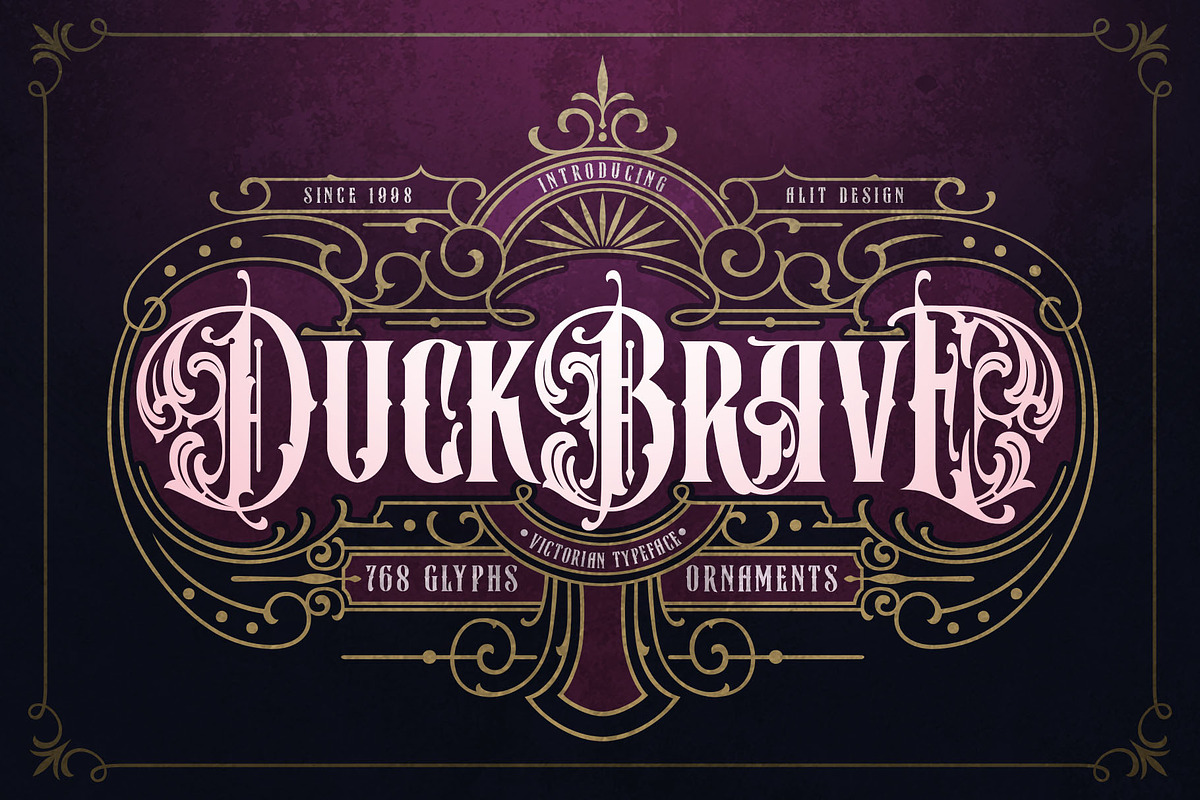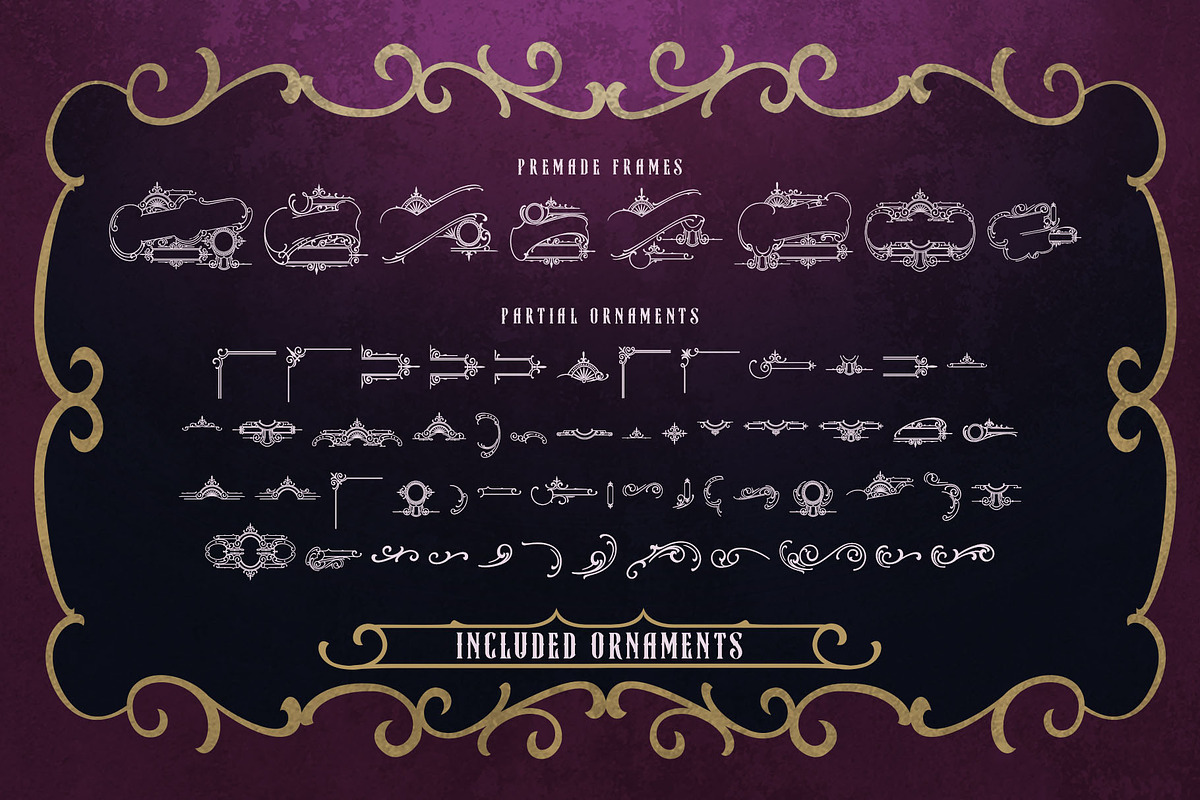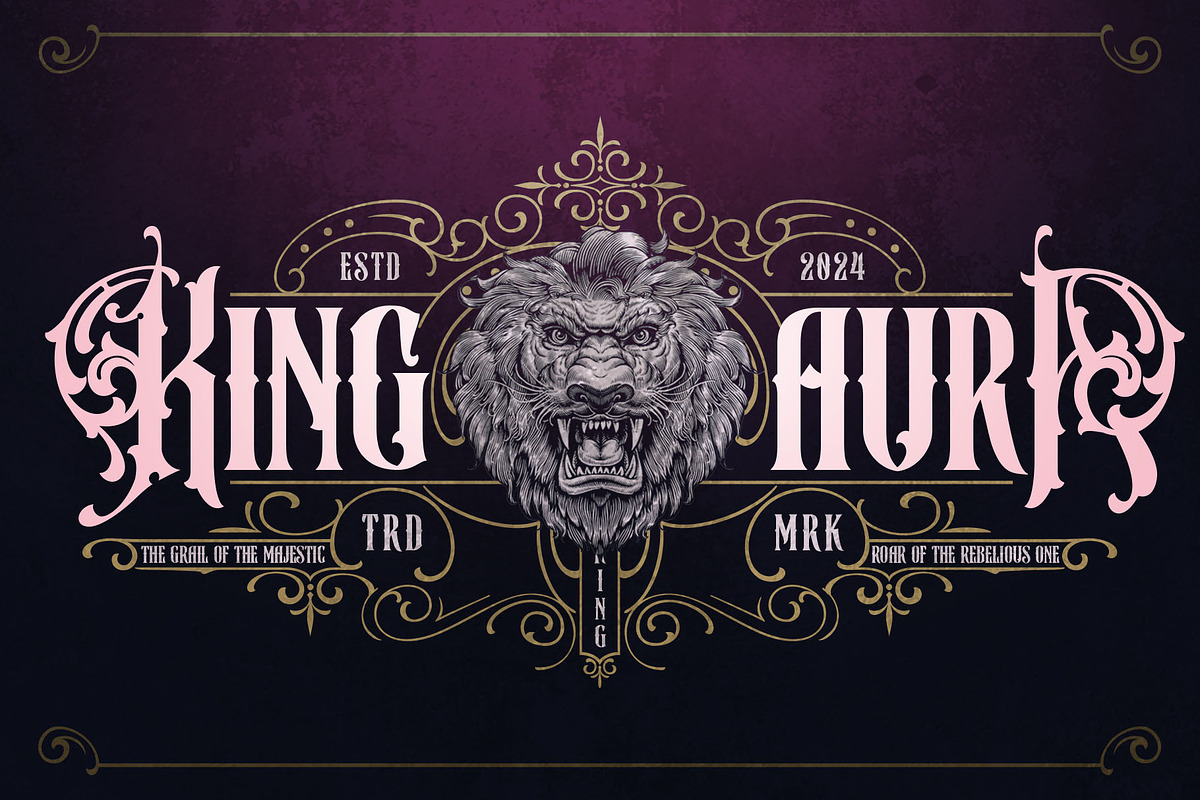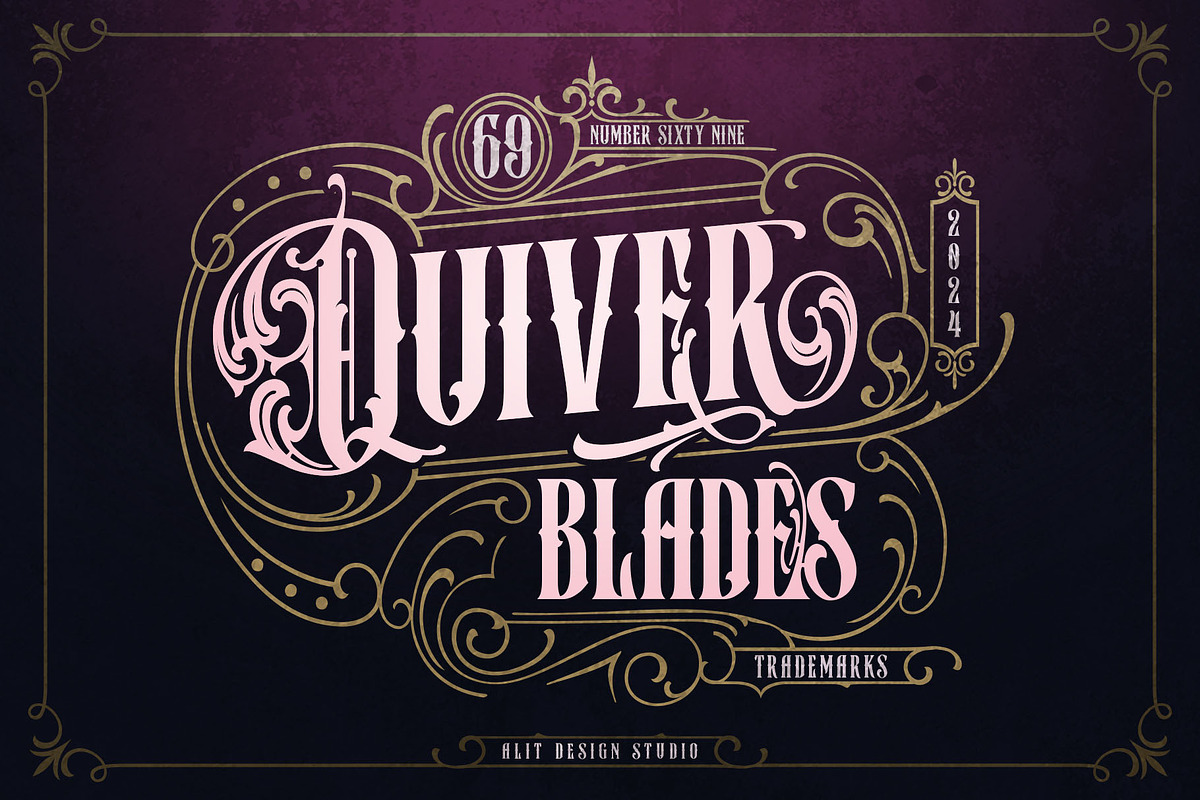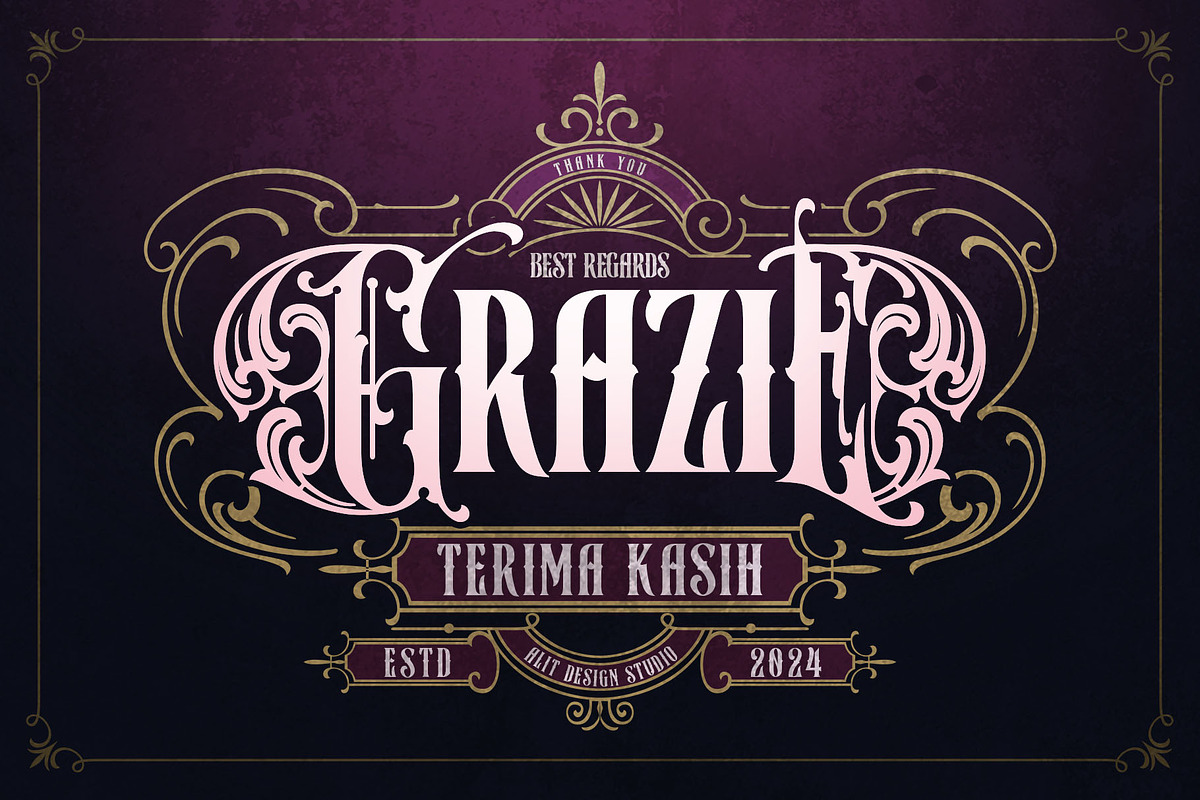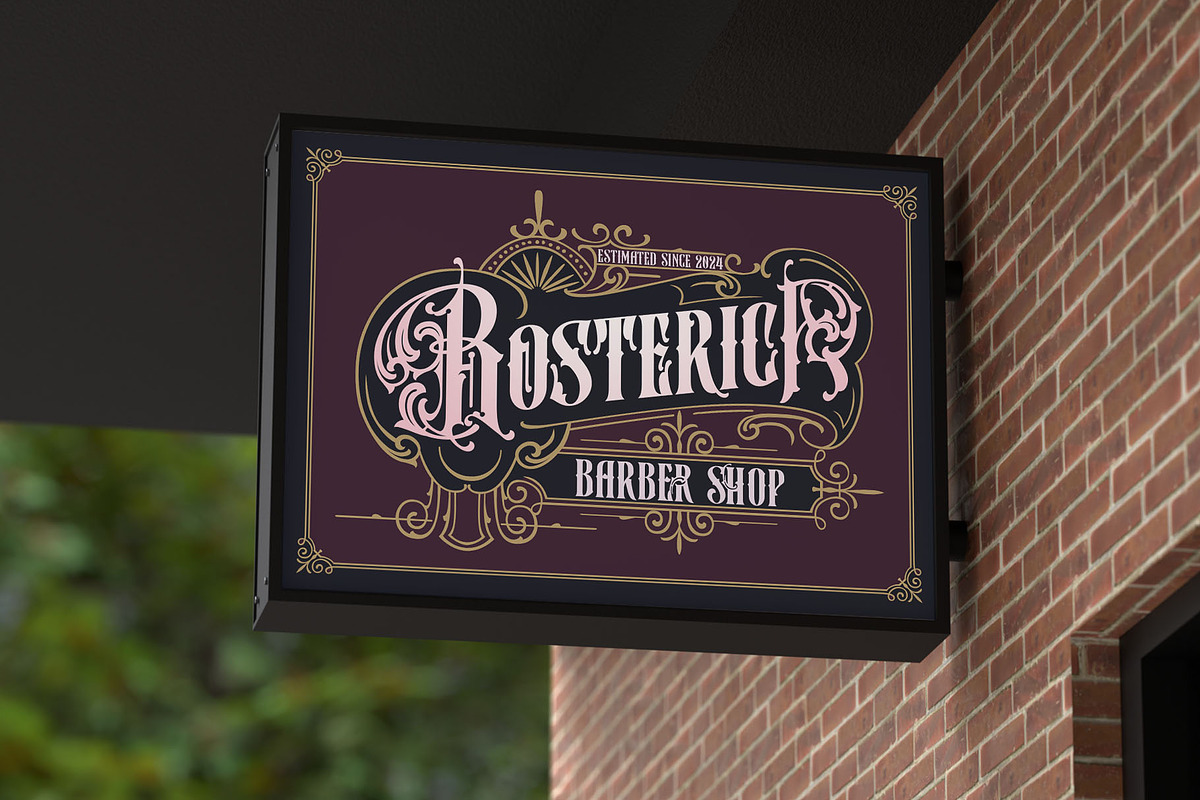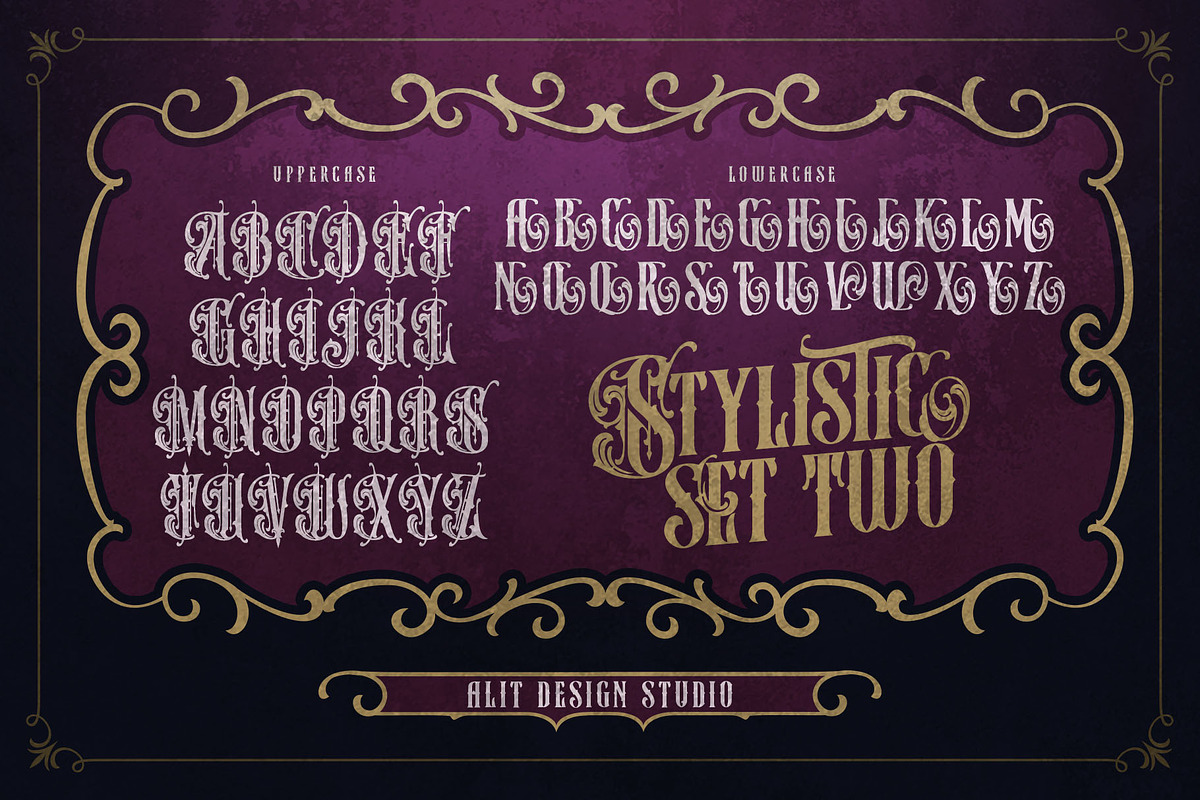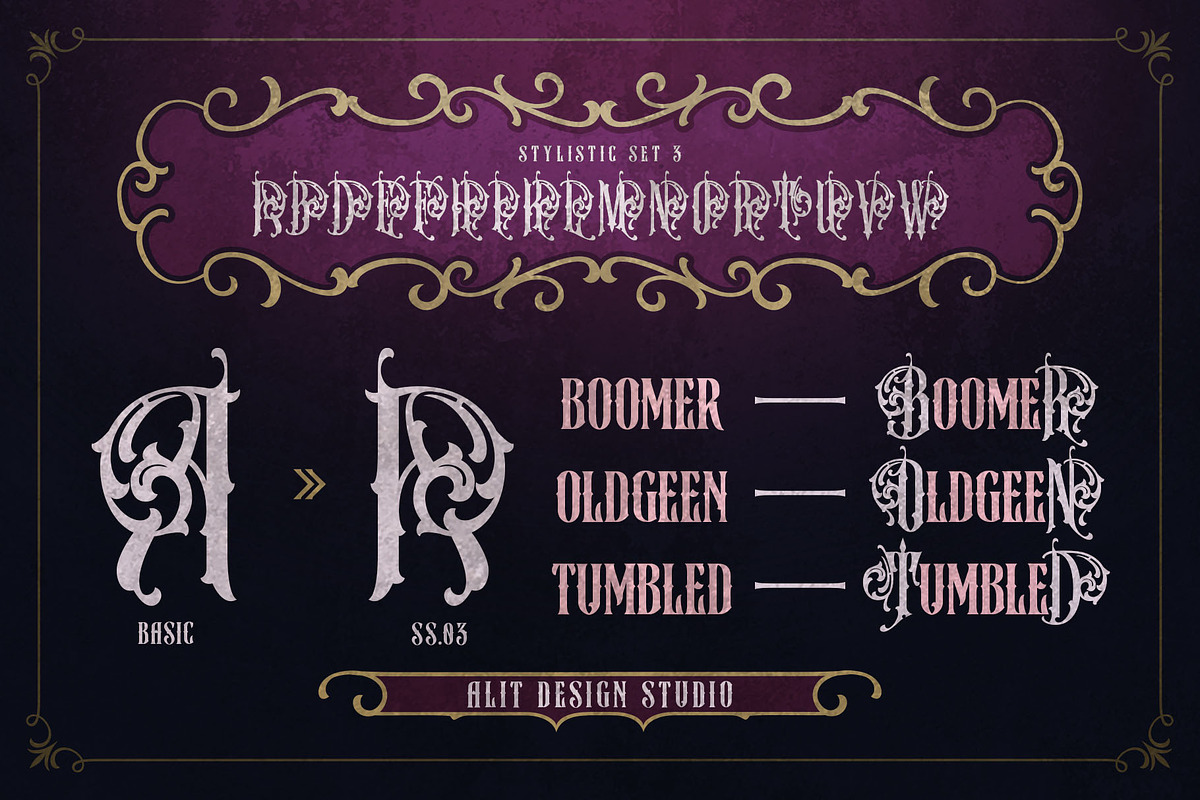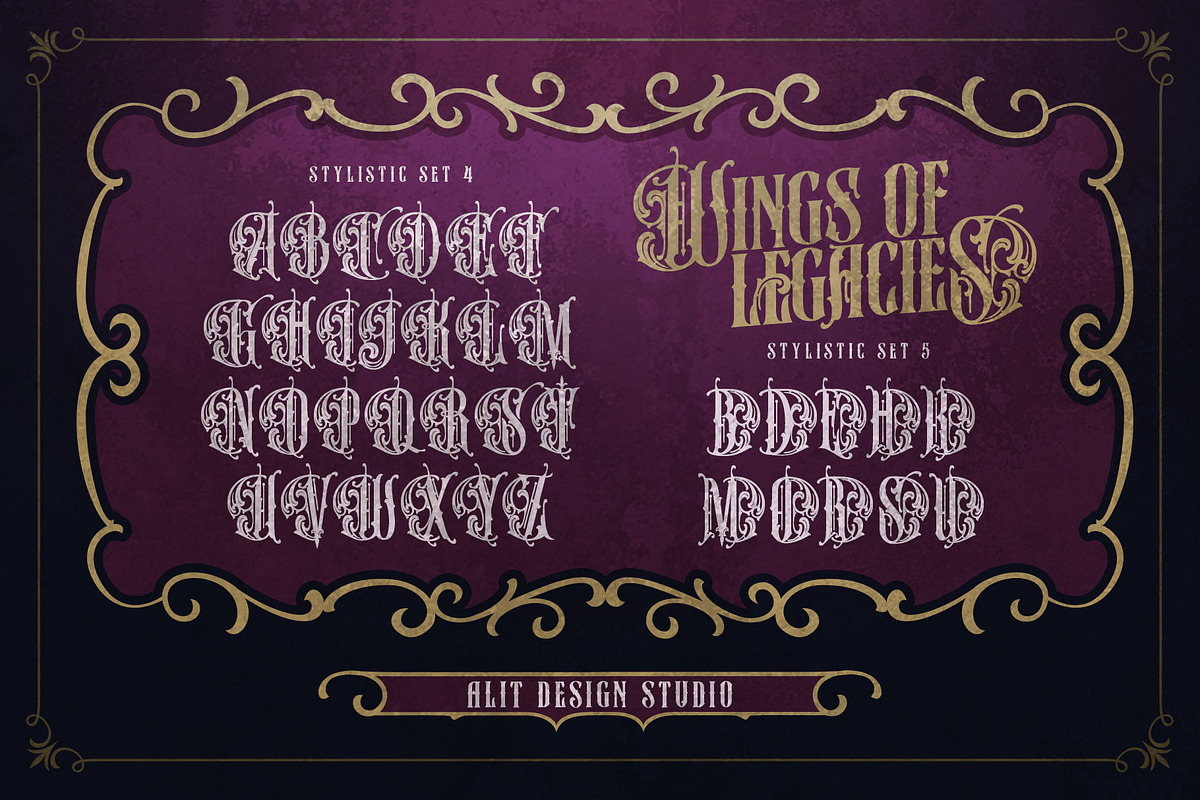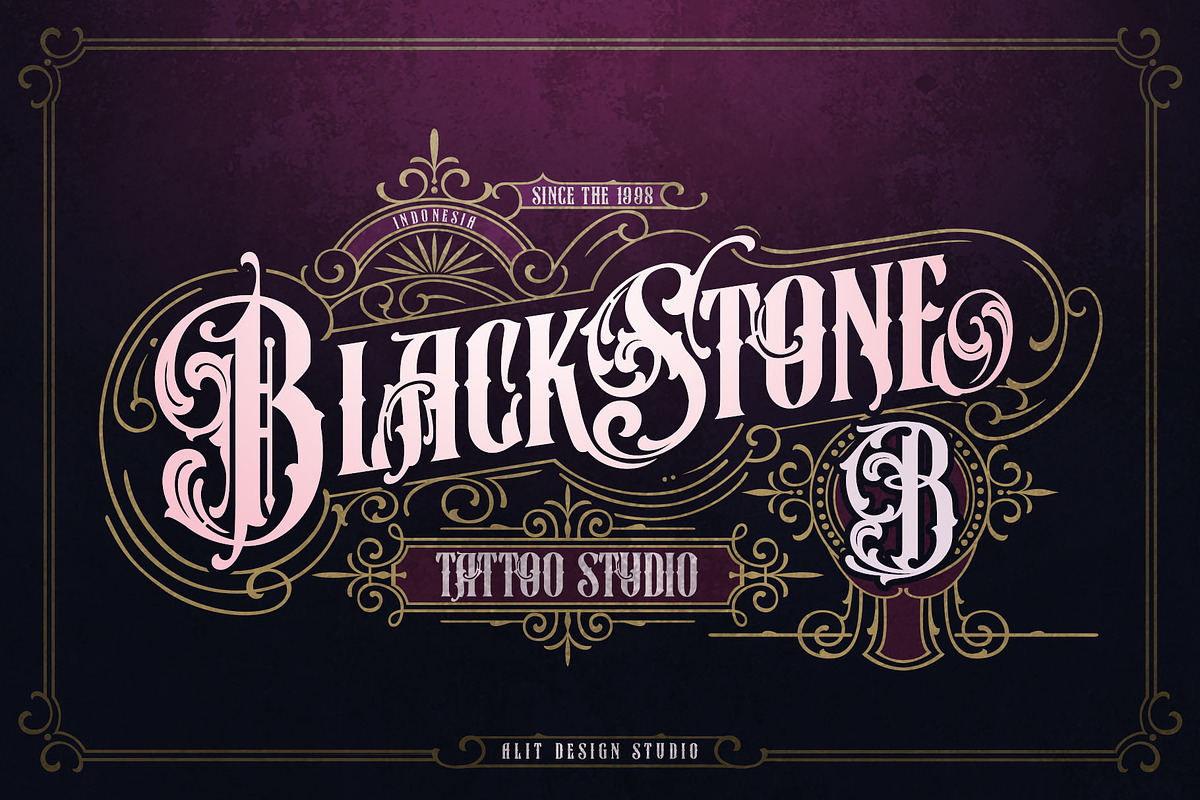
Duck Brave Victorian Typeface
Duck Brave Victorian Typeface: A Classic Masterpiece
Embrace the elegance and charm of a bygone era with Duck Brave Victorian Typeface. This meticulously crafted typeface captures the spirit of Victorian aesthetics with intricate details, making it a perfect choice for designs that demand sophistication and classic appeal. From ornate carvings to elaborate swashes, Duck Brave is a tribute to Victorian artistry, allowing your designs to stand out with a sense of timeless beauty.
- 768 Unique Characters: Enjoy an extensive character set that brings versatility and depth to your projects, with ample options for creating captivating compositions.
- 62 Supporting Dingbat Ornaments: Access a curated collection of dingbat ornaments, from frames to badges, perfect for adding decorative flourishes or enhancing focal points in your designs.
- Elegant Ligatures & Swashes: Enhance your text with fluid ligatures and sweeping swashes that bring flow and artistic flair to headlines, logos, and invitations.
- Stylistic Alternatives: Unlock a variety of stylistic alternatives to personalize your typography with customized letterforms and decorative touches.
- PUA Unicode & Multilingual Support: With PUA encoding and support for multiple languages, Duck Brave allows seamless access to special characters across a wide range of languages.
Ideal For: Logos, branding, invitations, packaging, and any project that calls for a distinguished, Victorian-inspired look.
Whether you're designing a vintage logo or an elegant poster, Duck Brave Victorian Typeface provides the tools you need to make your work memorable, stylish, and authentically Victorian.